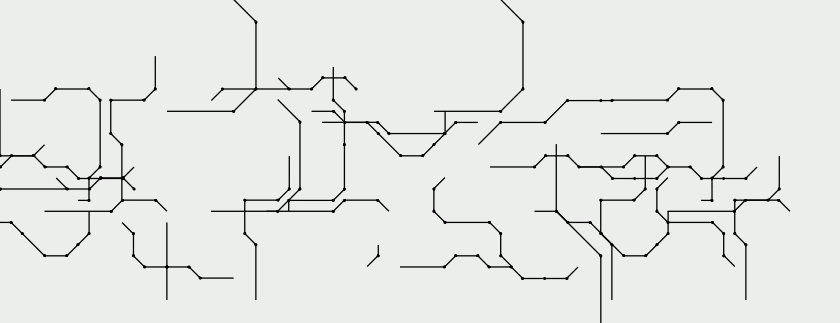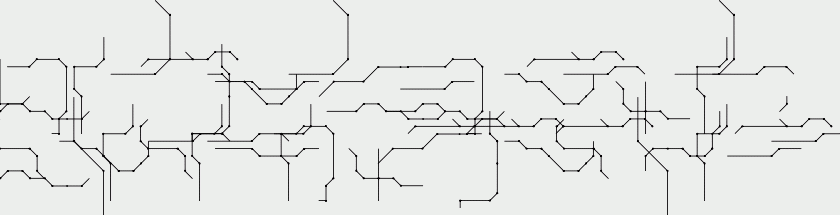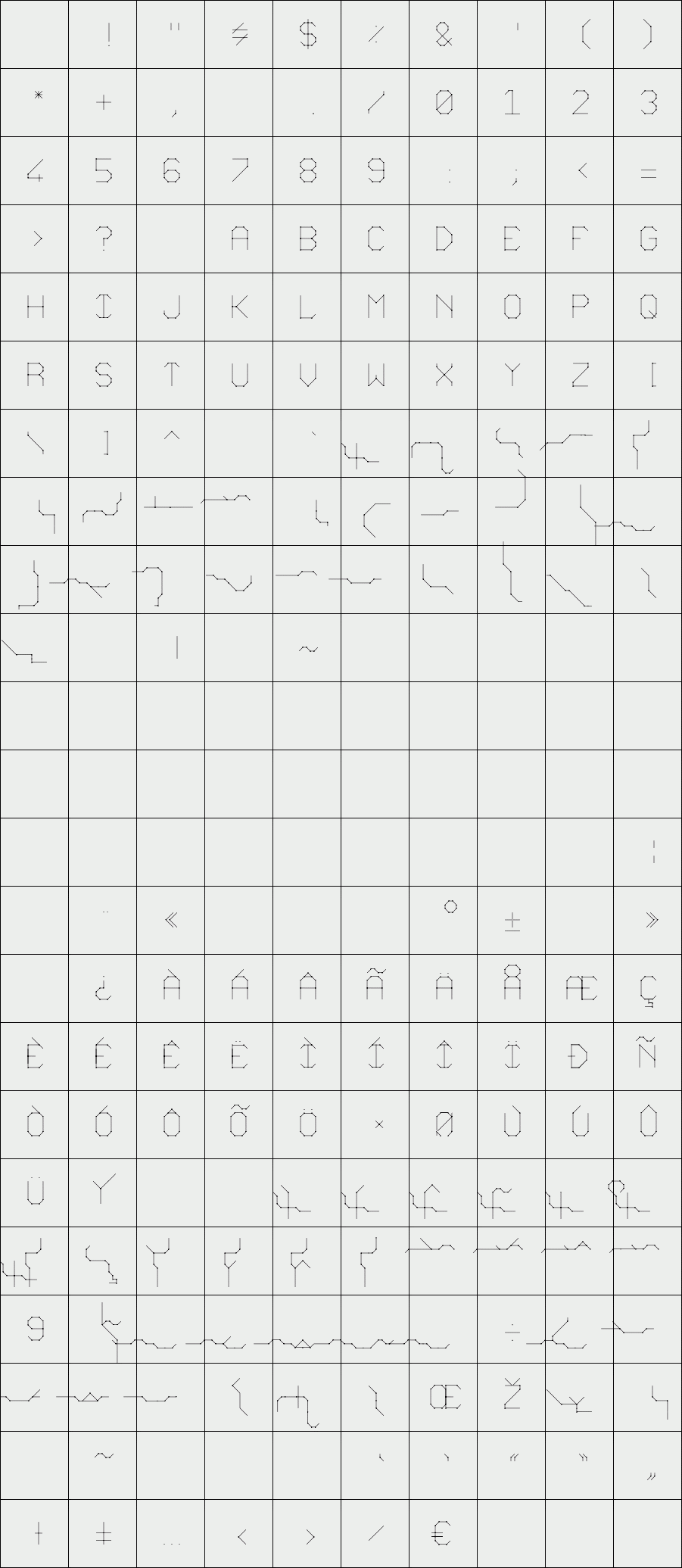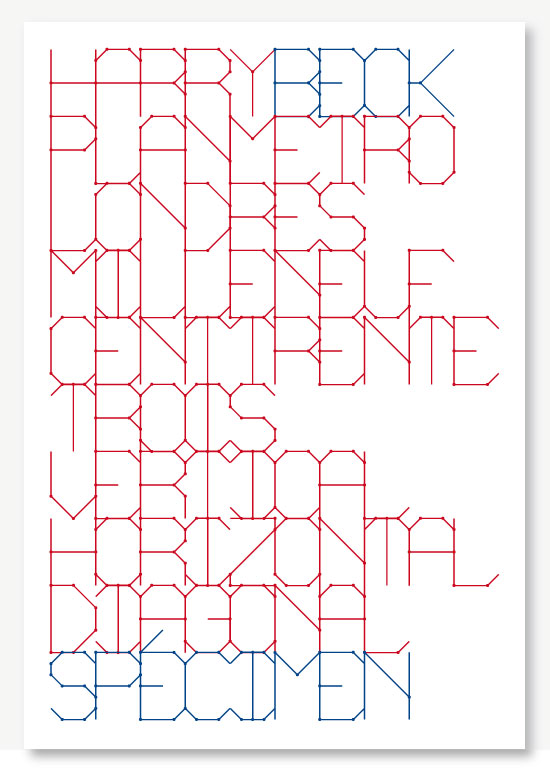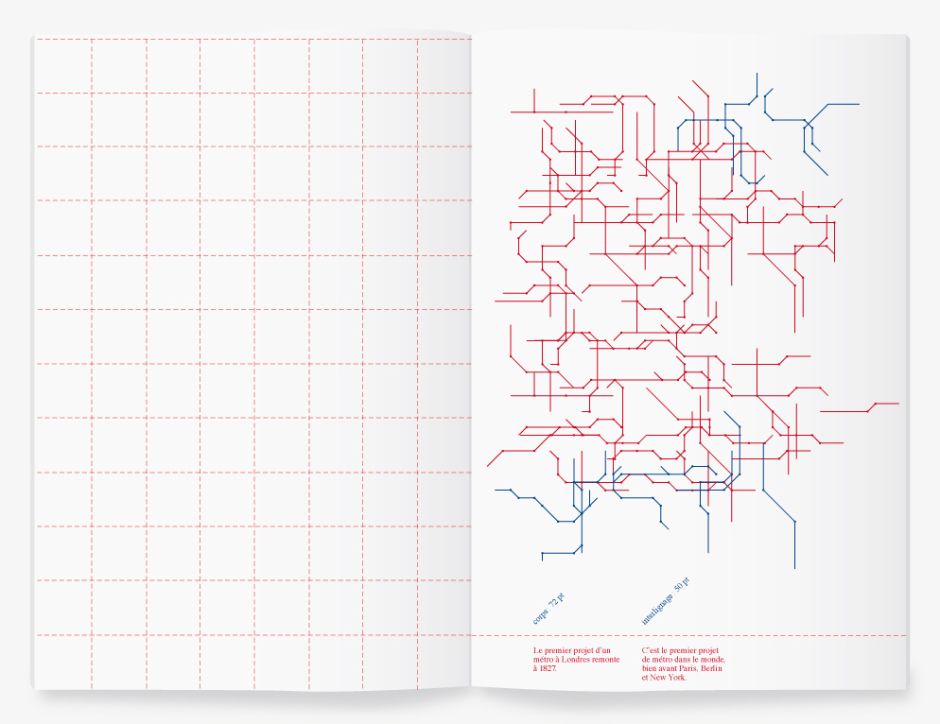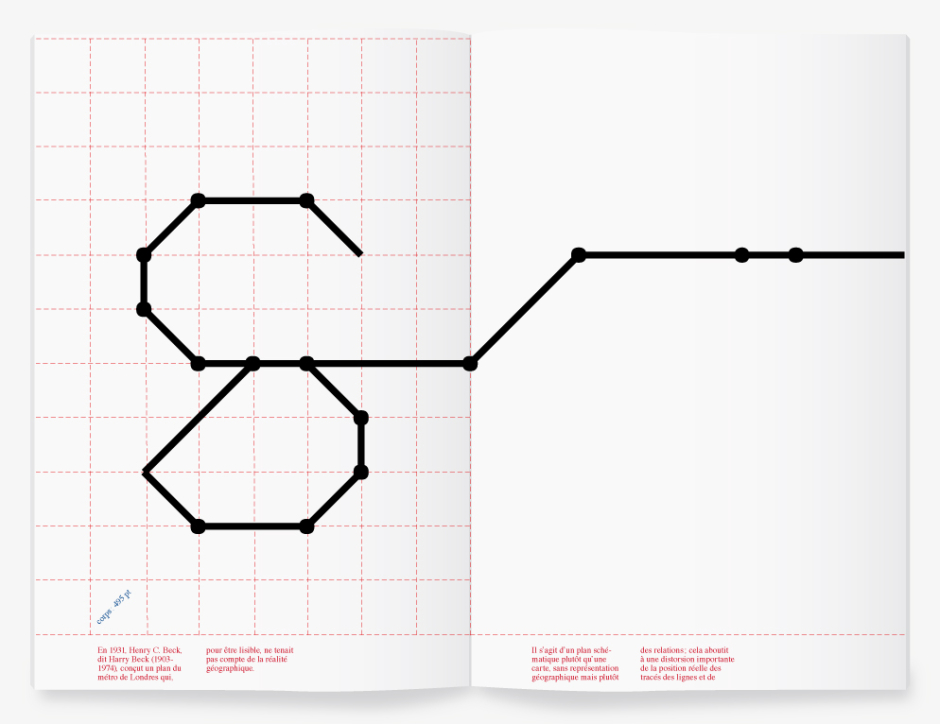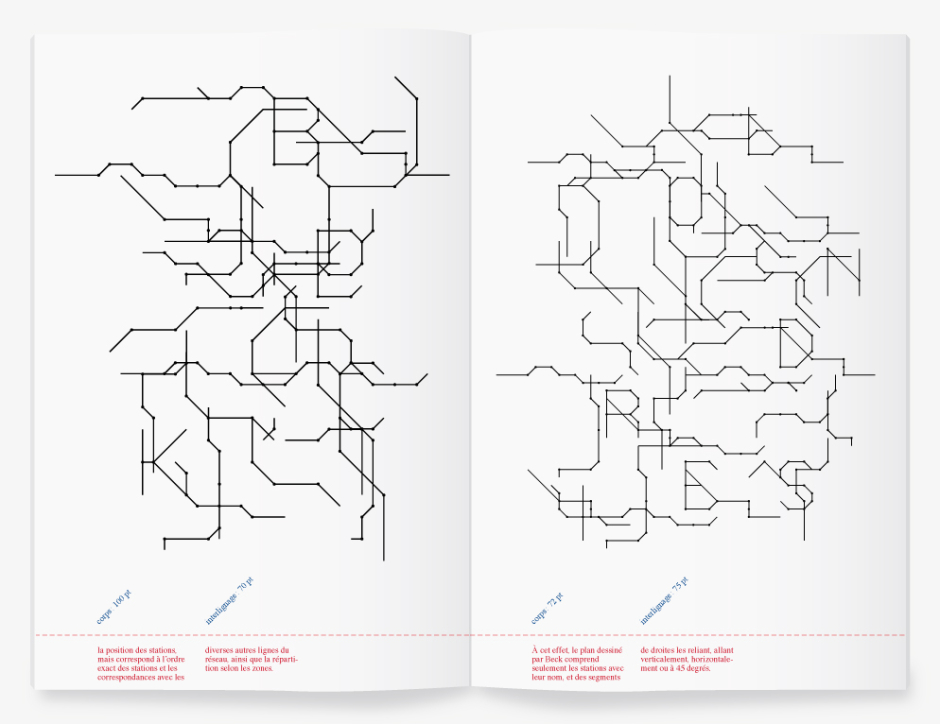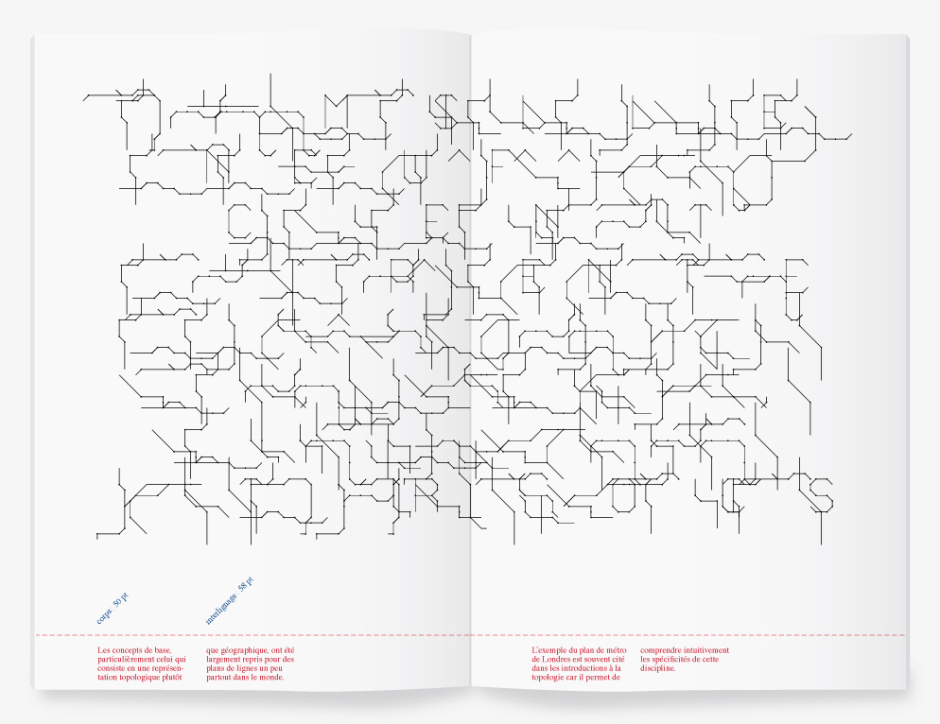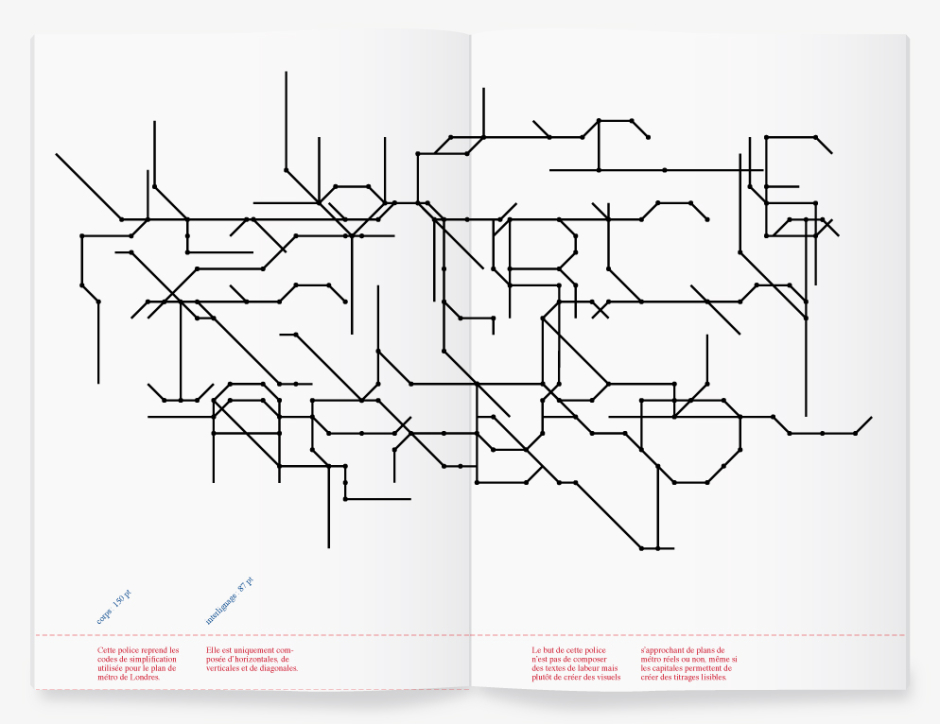
Beck
Beck is a typeface based on caracteristics of the first subway map of London designed by Harry Beck.
It will not be used to write text, but rather to create visuals even if the capital can be used to titles. The purpose of this typo is to play with both visuals and texts. When the text will get the upper hand over the visual and when these lines, these abstract schemas will scramble a message, a word.
Designer: Elodie Poulin